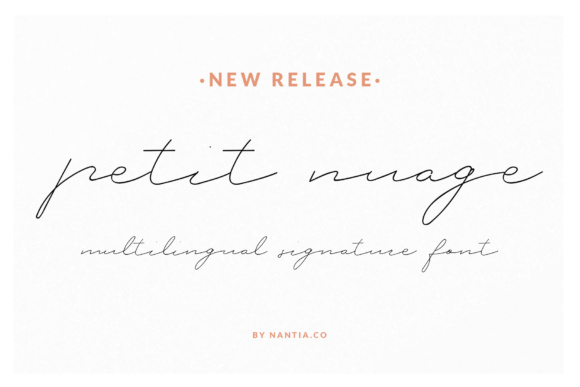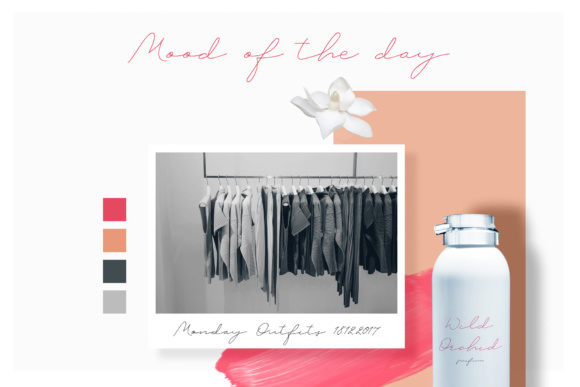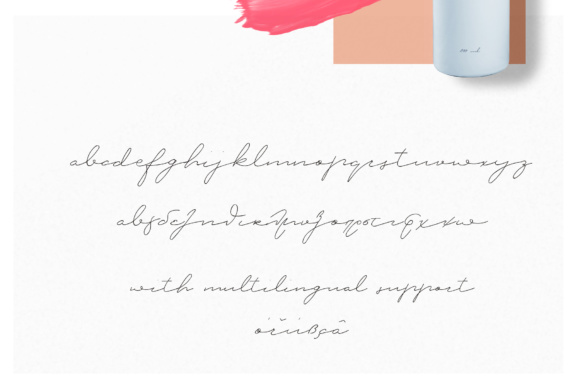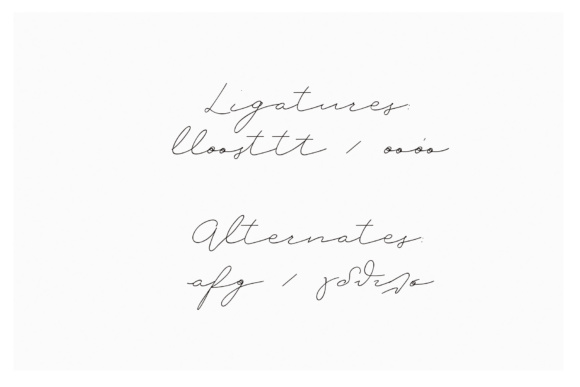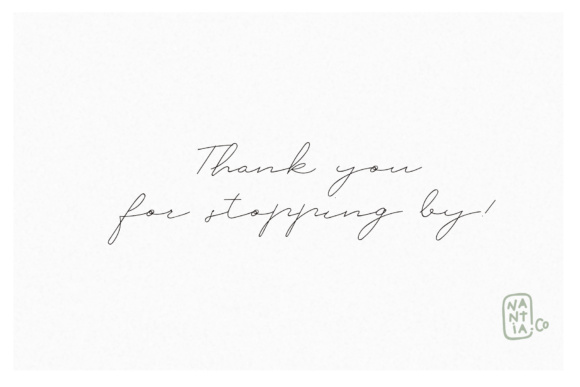
Petit Nuage Font
About Petit Nuage Font
Petit Nuage is a decorative signature font with which you can achieve a handwritten feel in every design. This signature style typeface is perfect for modern designing needs.